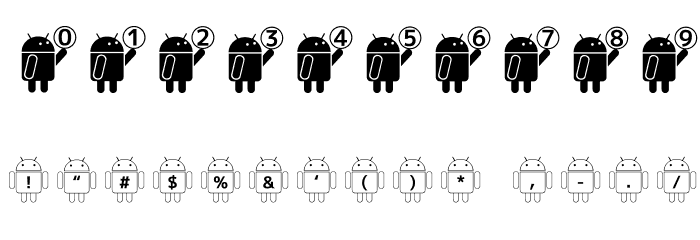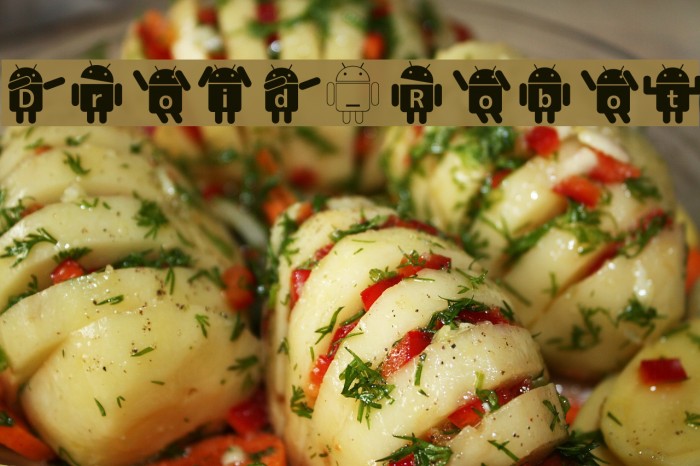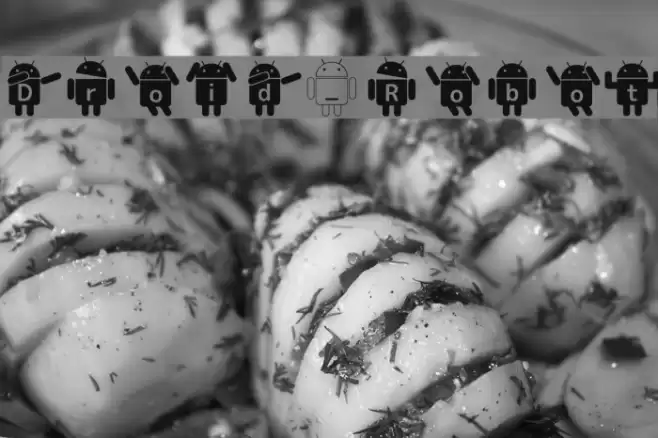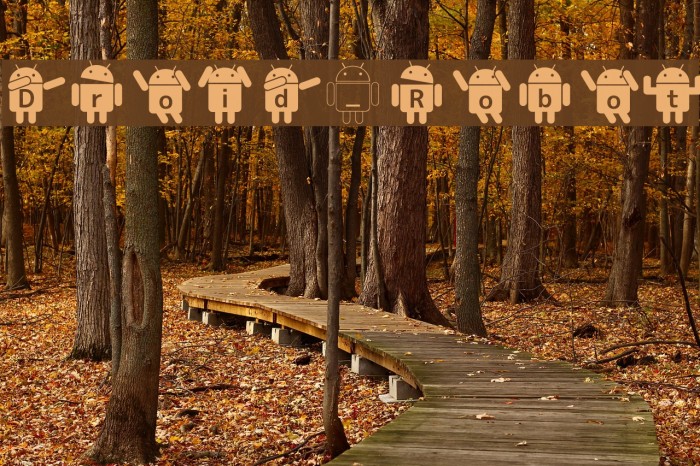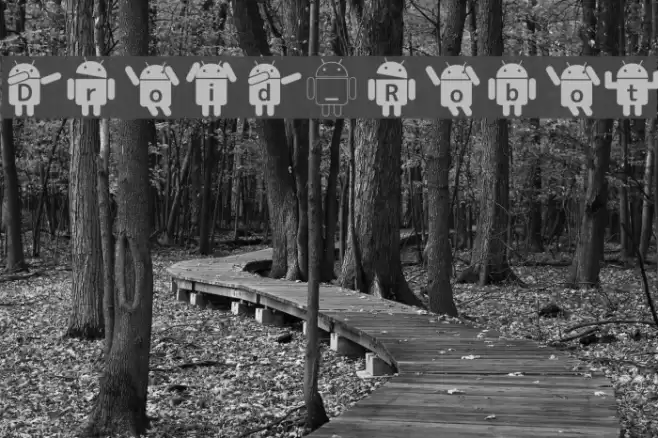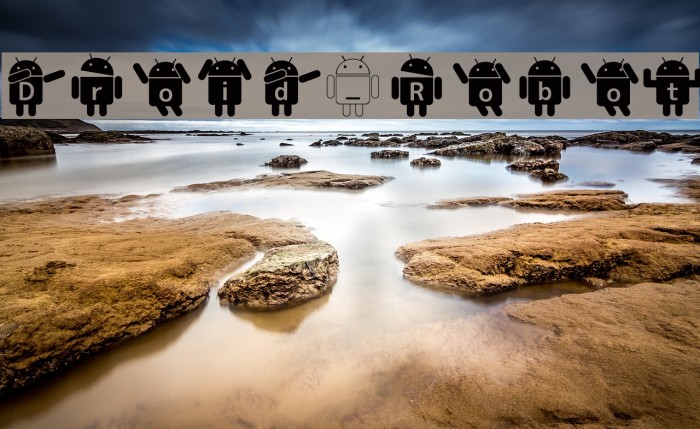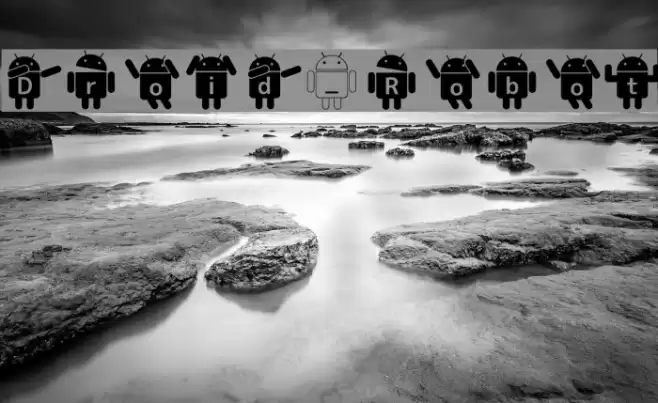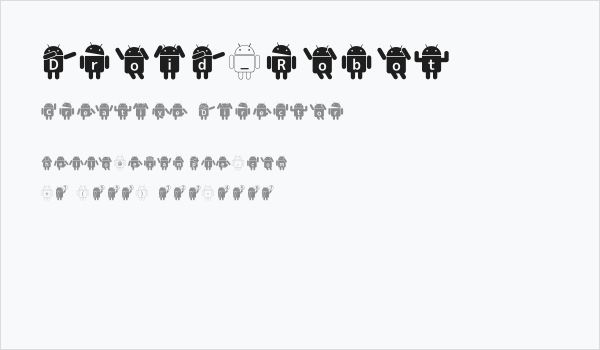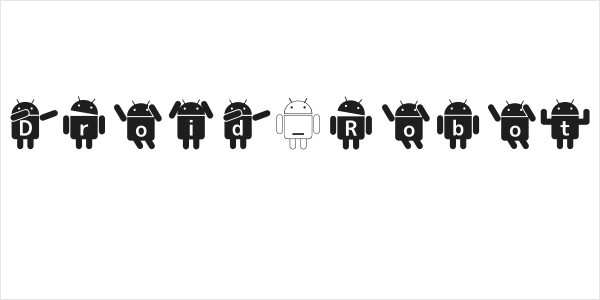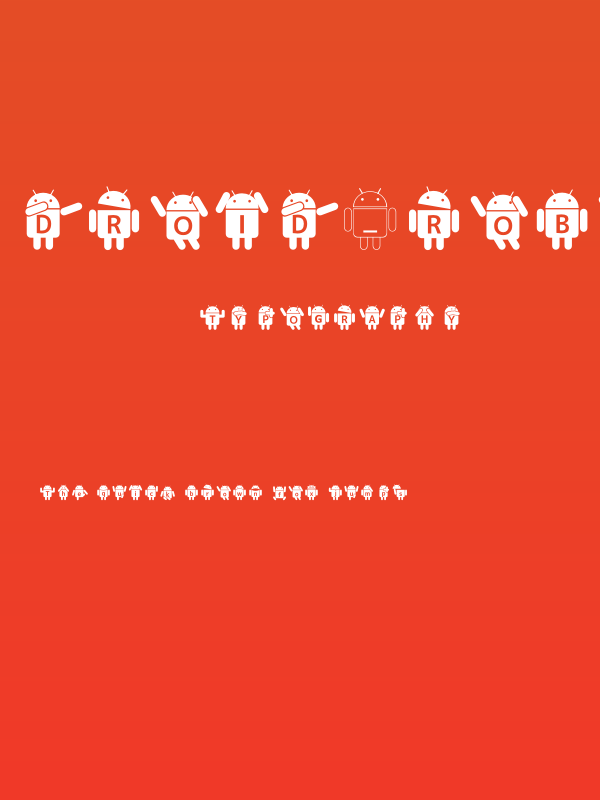
Droid_Robot Font
Droid_Robot Description
This playful and whimsical font features characters designed as android robots, each holding a letter, number, or symbol. The design is bold and cartoonish, with each character encapsulated within a stylized robot figure. The font is highly decorative, making it ideal for projects that require a fun and engaging visual element. The characters are evenly spaced, and the overall style is modern with a tech-inspired theme. The font's unique appearance makes it suitable for creative and informal applications.